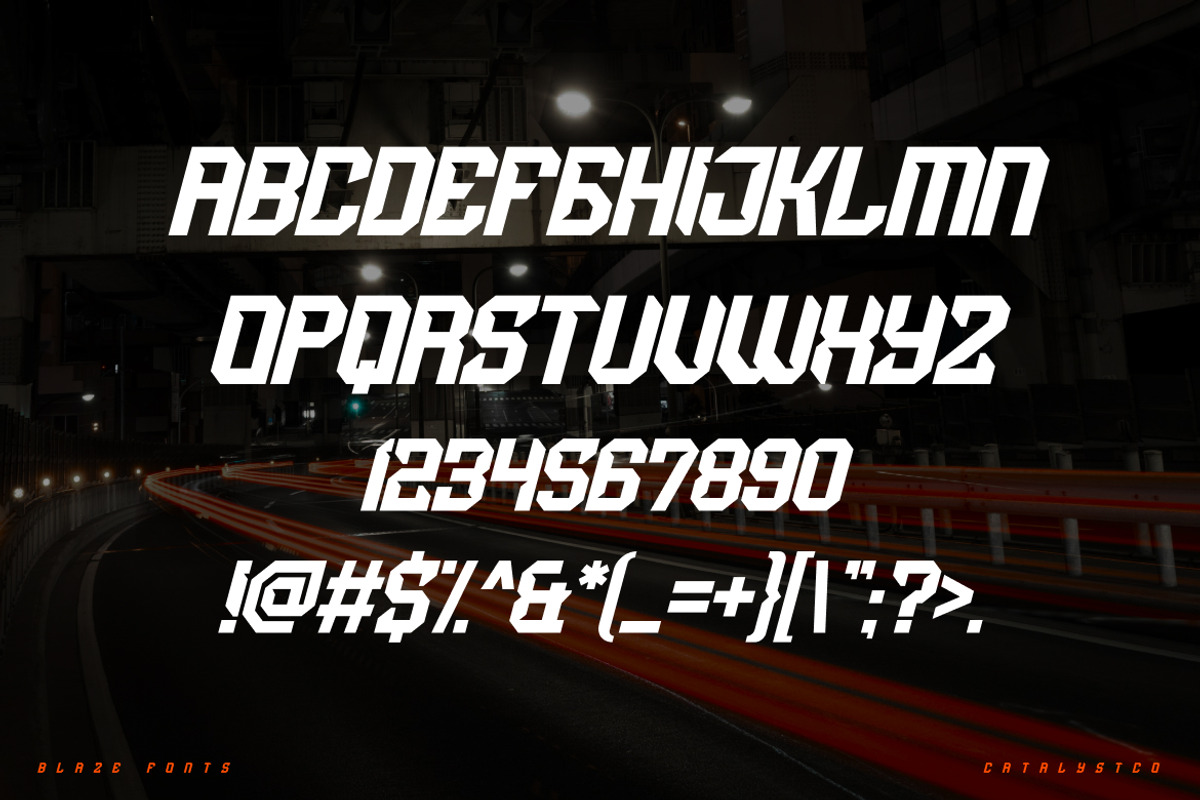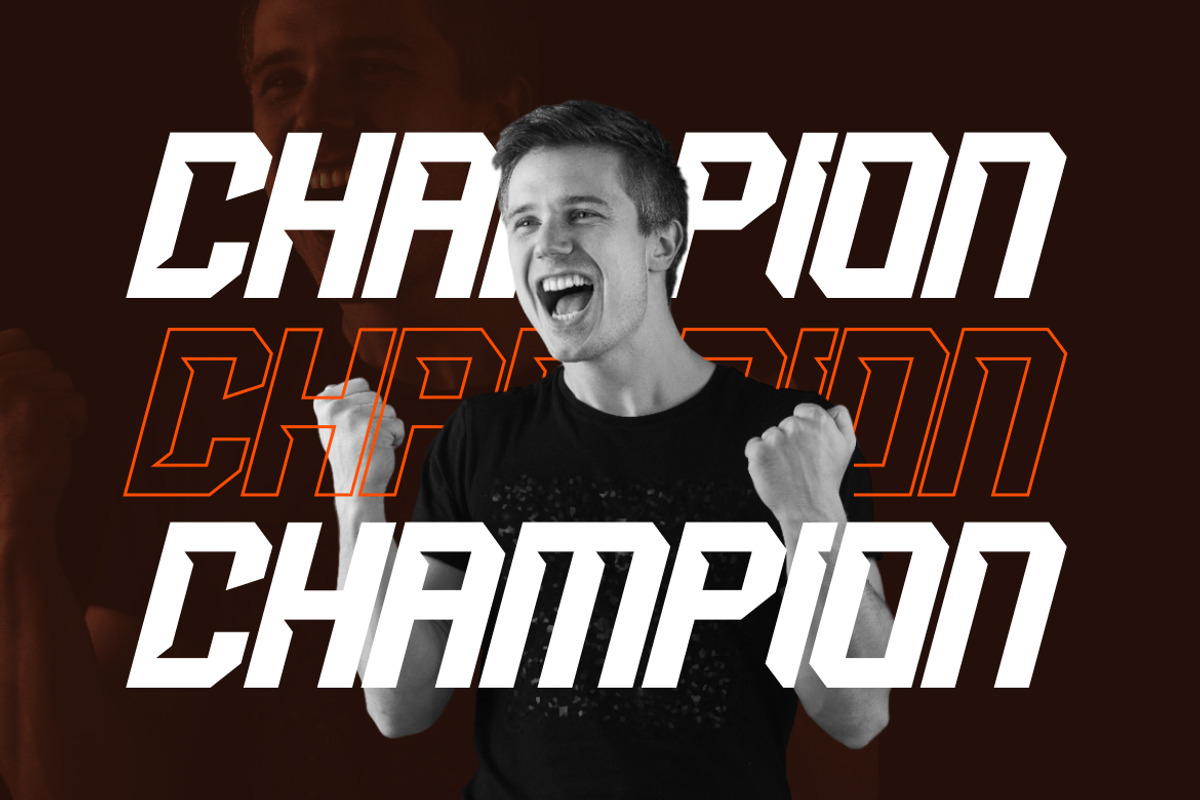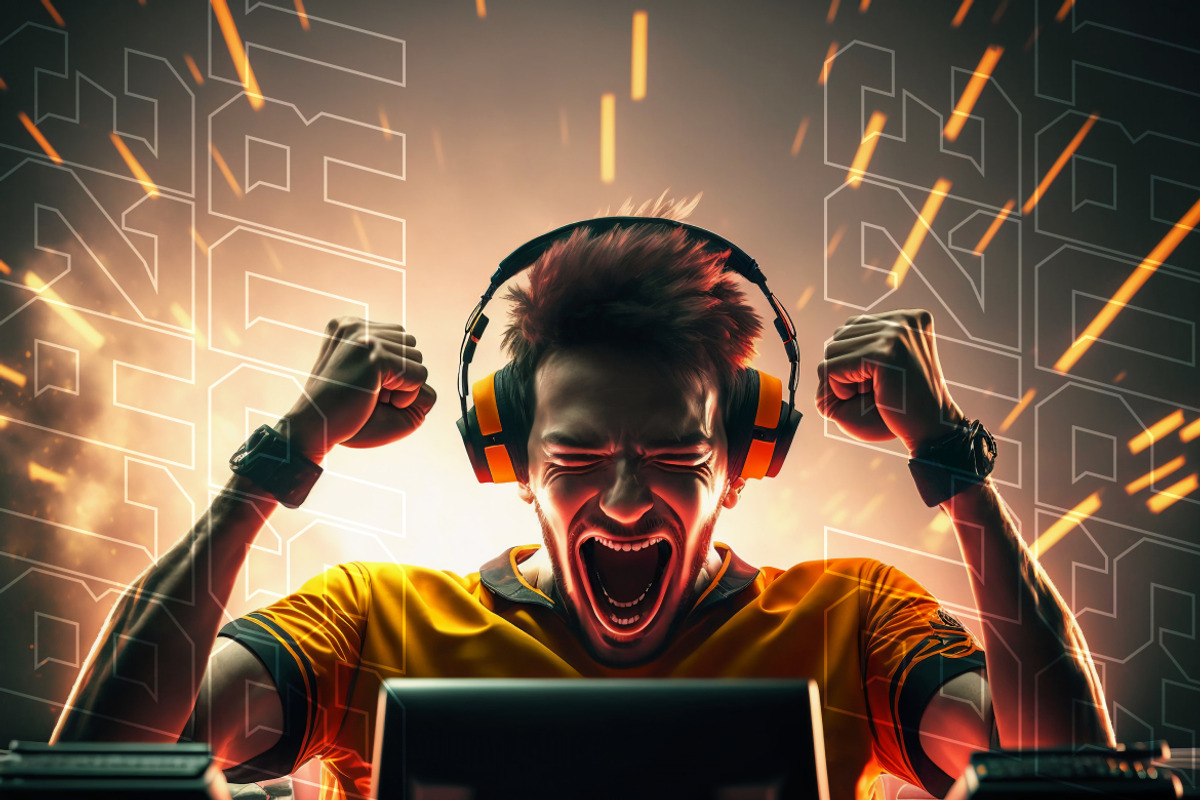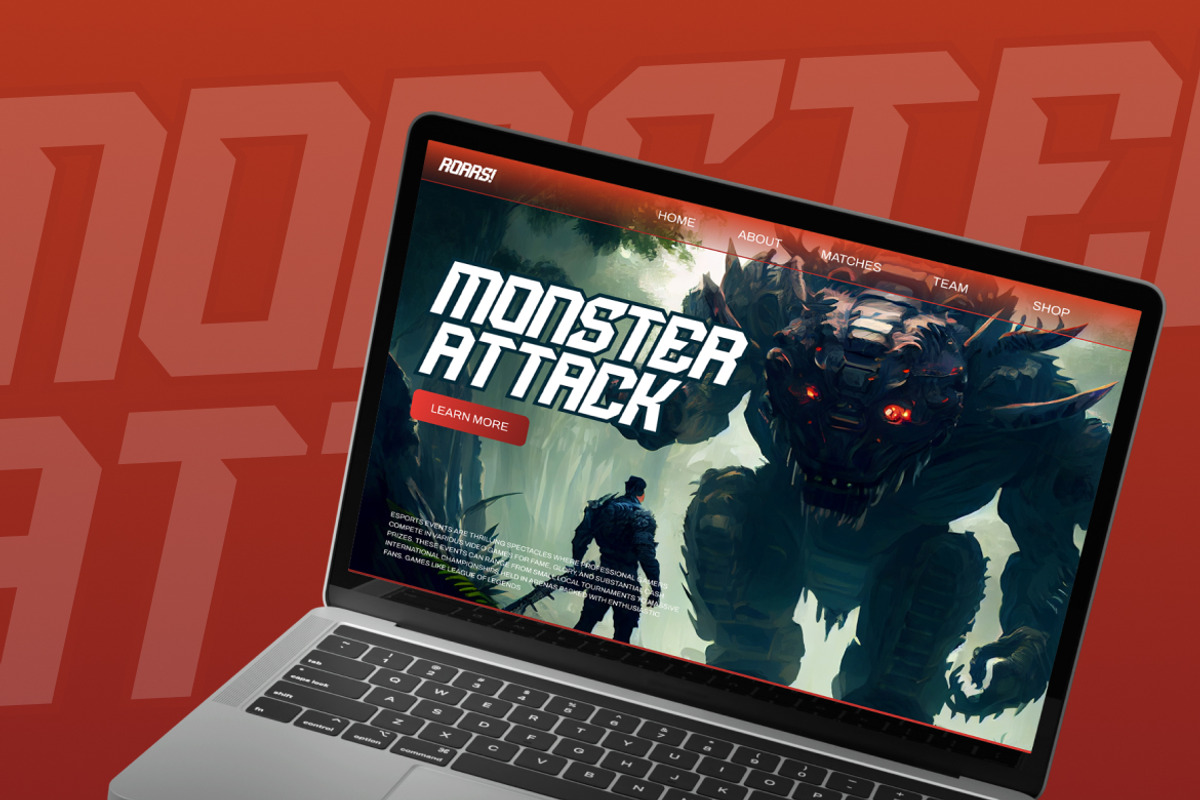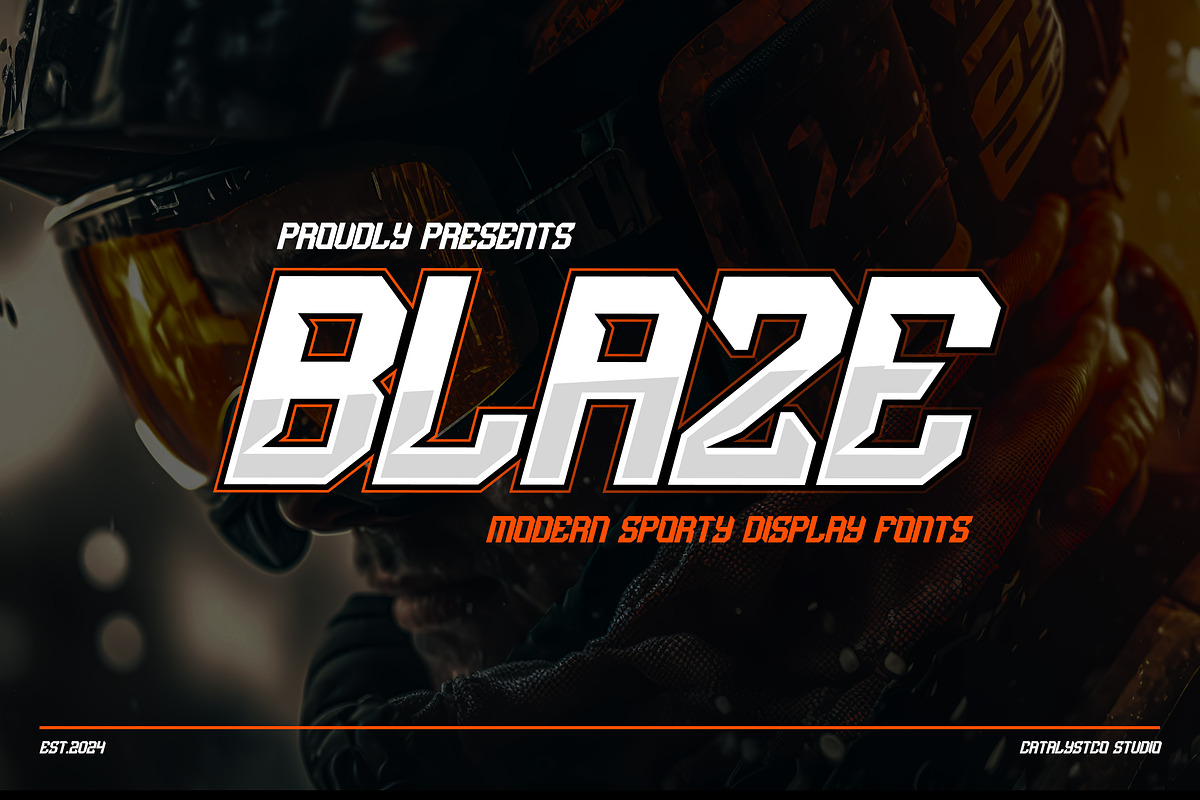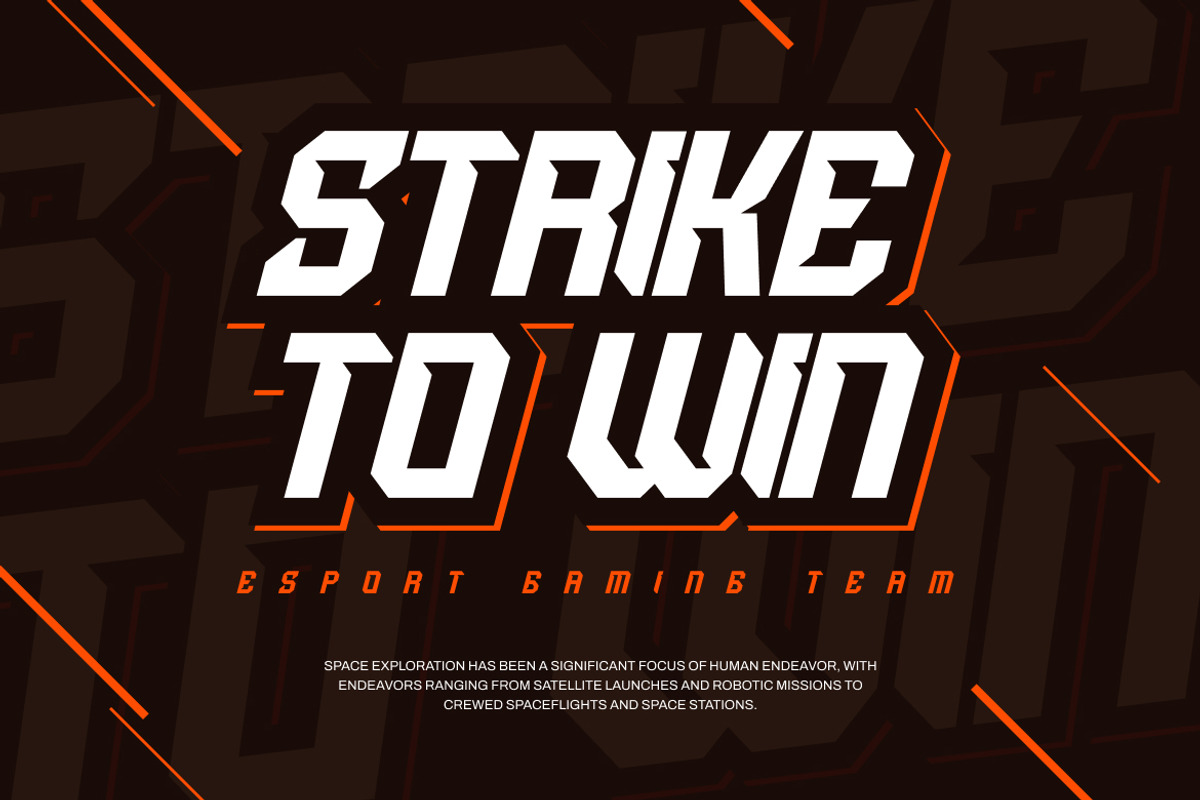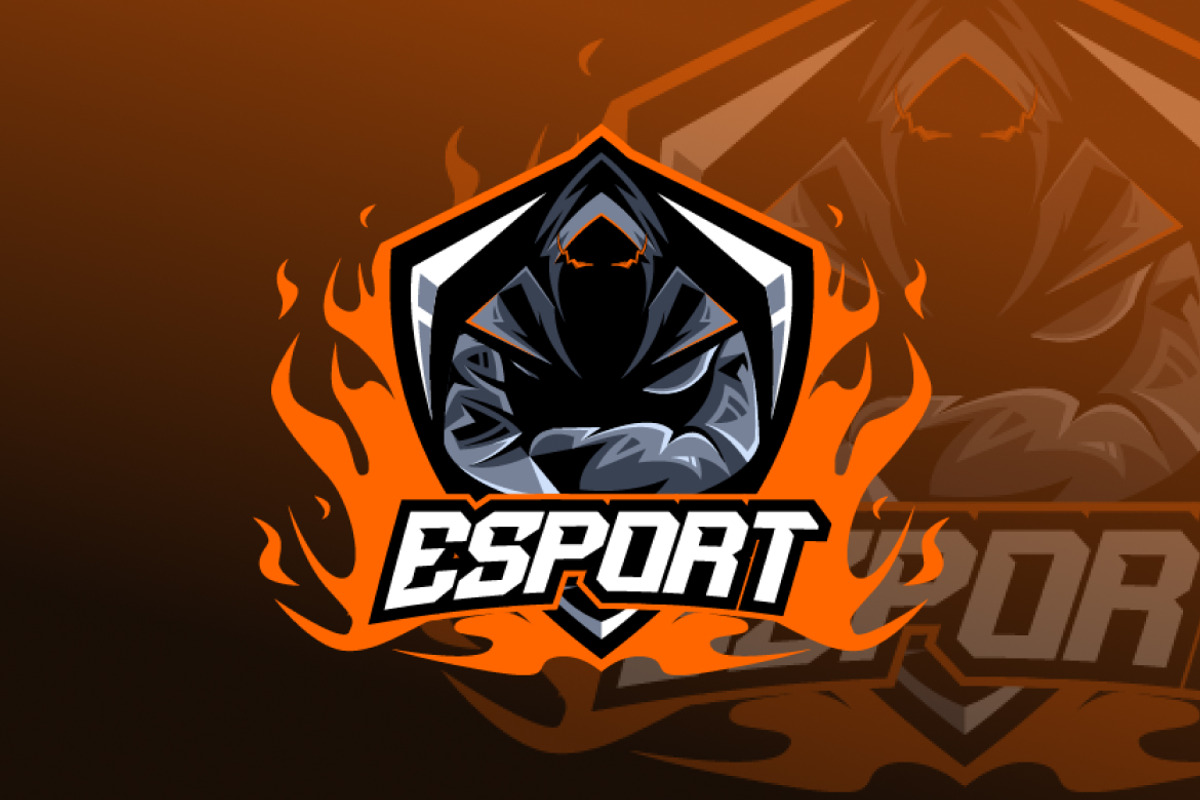
Blazze Modern Sport Display
Blazze Modern Sport Display typeface excellent used for the manufacture quote text, logotype, header magazine, and many more.